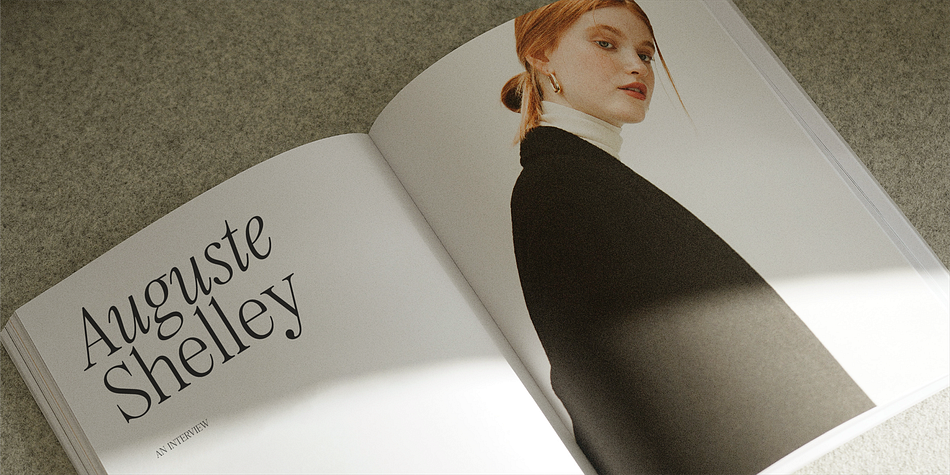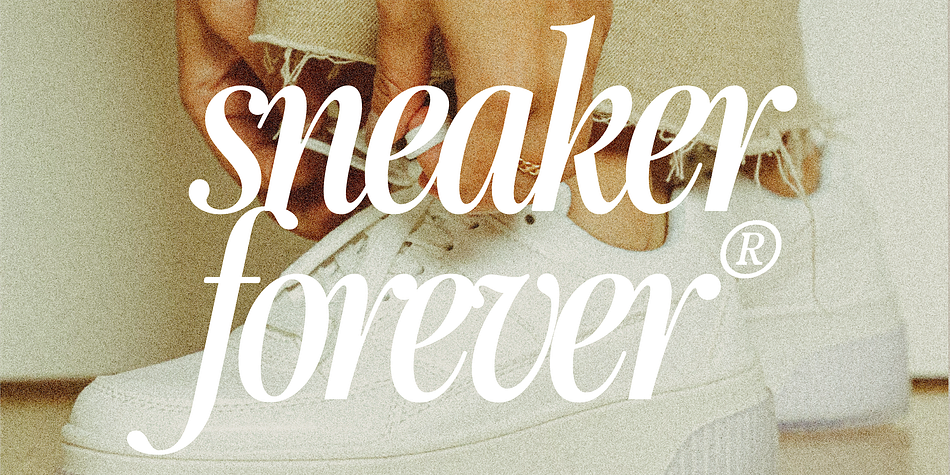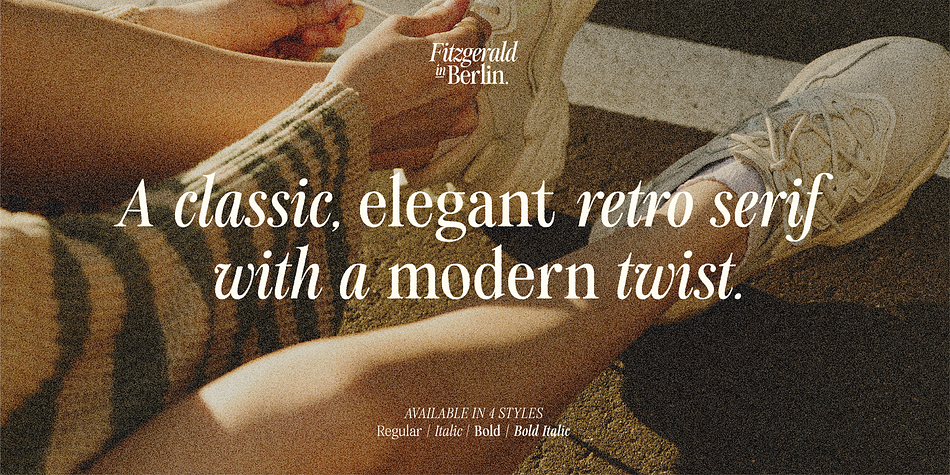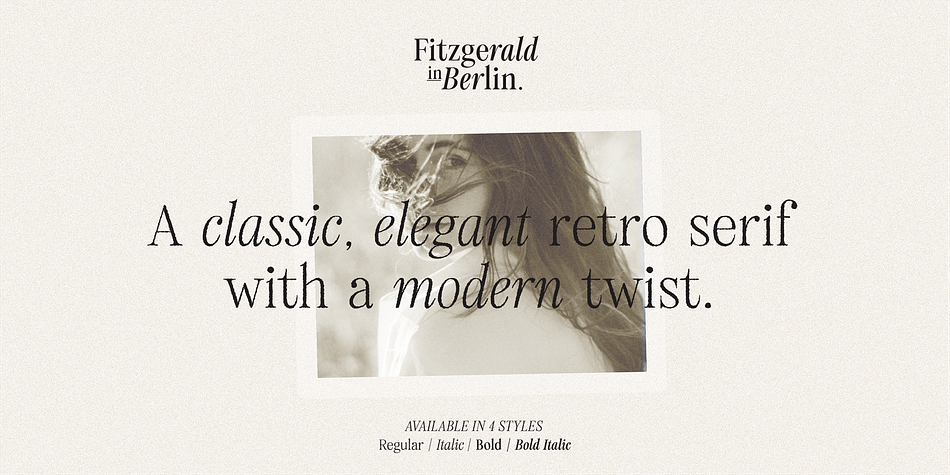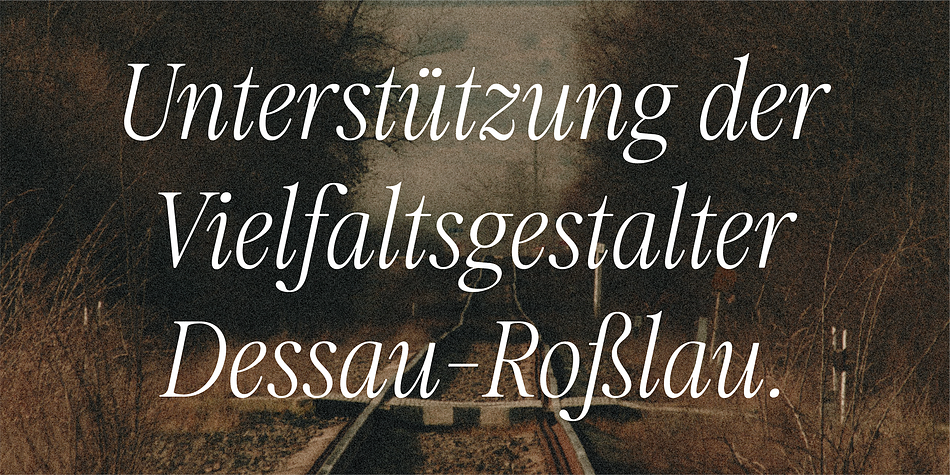
HV Fitzgerald
Designed by Max Duy T., HV Fitzgerald is a serif font family. This typeface has four styles and was published by Harmonais Visual.
Fitzgerald is a classic and elegant retro serif with a modern twist. With its decent readability, Fitzgerald is perfect for both display as well as body text.
Inspired by all the retro aesthetics making a comeback, Fitzgerald is perfectly suitable for creating nostalgic yet still clean and elegant designs such as logos, packaging, editorial, and more.